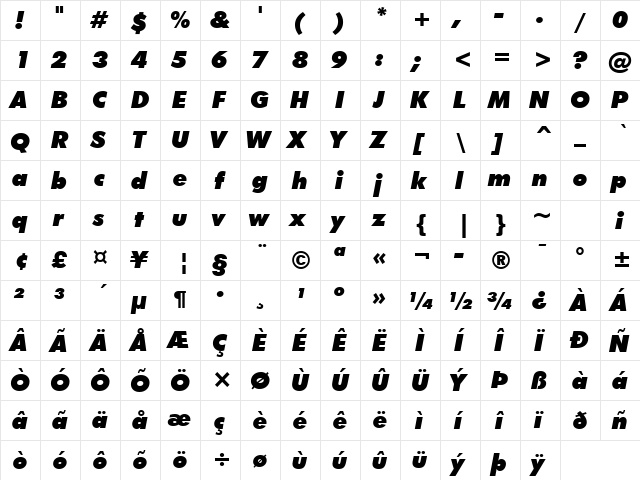
Futura XBlkIt BT Extra Black Italic Font Preview
Futura XBlkIt BT Extra Black Italic
Futura XBlkIt BT Extra Black Italic Font Details
Design Context for Futura XBlkIt BT Typeface
Futura XBlkIt BT channels digital-age aesthetics through its sharp, structured letterforms — ideal for brands that want to signal innovation. Its italic angle brings a sense of urgency and motion to the letterforms.
Pro Tip: Try Futura XBlkIt BT with generous letter-spacing in UI labels and navigation — the geometric forms benefit from room to breathe.